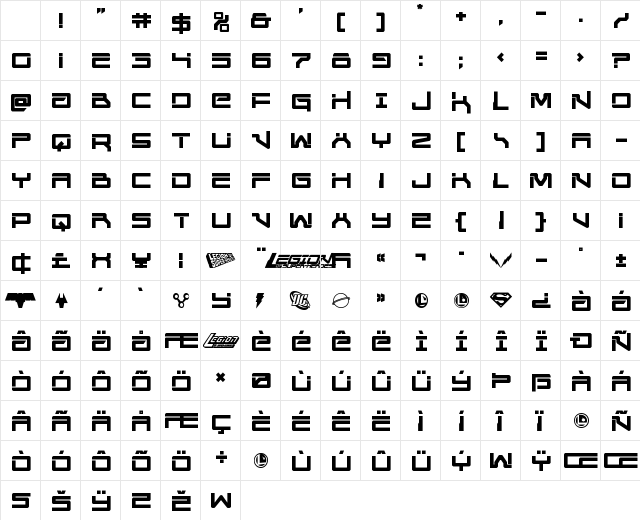
Complete United Planets Semi-Bold glyph index. Displaying only characters natively supported by United Planets Semi-Bold font.
United Planets Semi-Bold is a composed and adaptable typeface that performs quietly and consistently across a wide range of design contexts. Its bold stroke weight gives it real presence on the page.